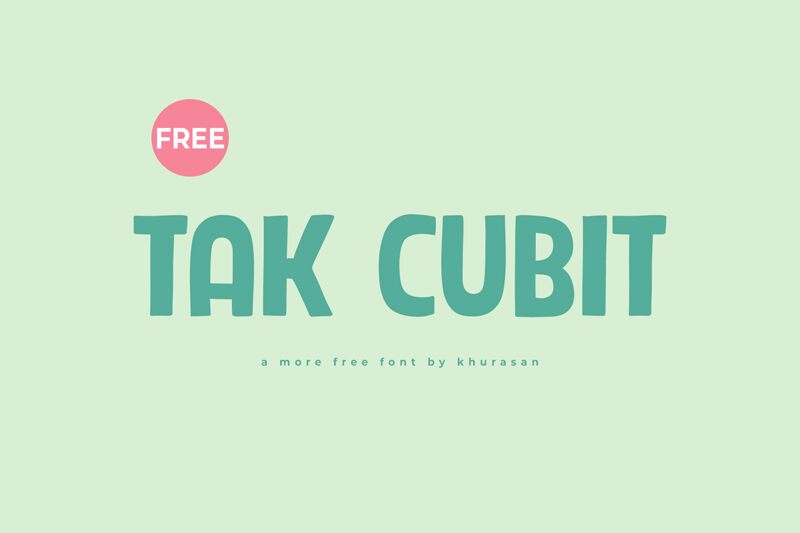
Tak Cubit
Tak Cubit font, designed by Khurasan, captivates with its bold and playful character, embodying a delightful cartoon style. The exaggerated forms and rounded edges create an inviting visual appeal that radiates whimsy and fun. Its robust presence makes it stand out in any context, ensuring that messages are communicated with clarity and vibrancy.
This striking font is particularly suited for children's books, playful branding, or dynamic advertising campaigns aimed at engaging a youthful audience. The boldness of Tak Cubit draws the eye and energizes designs, making it an excellent choice for projects seeking to evoke joy and enthusiasm while maintaining impact. Whether featured prominently on posters or in digital media, this font is sure to leave a lasting impression.